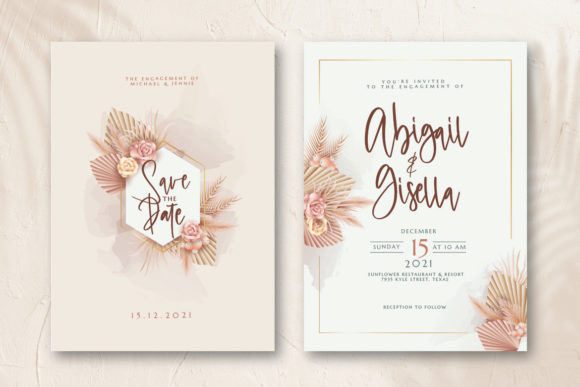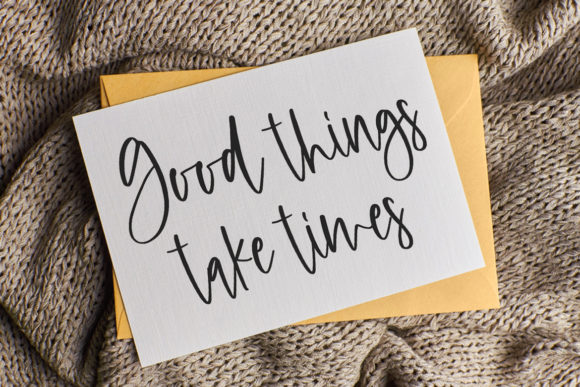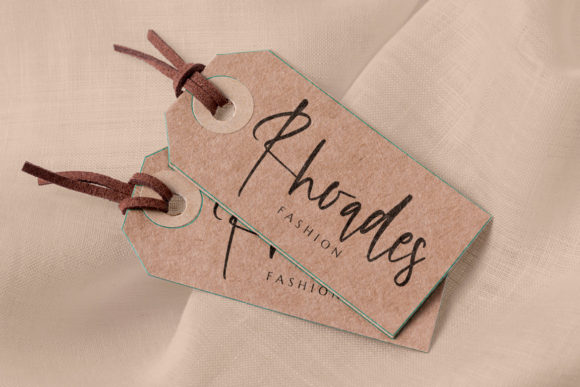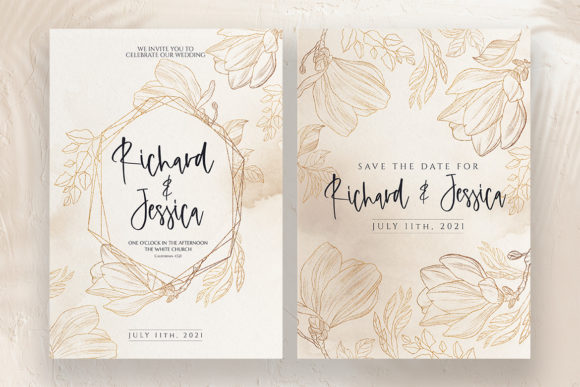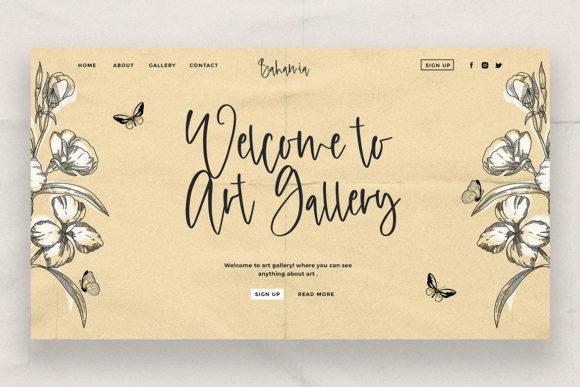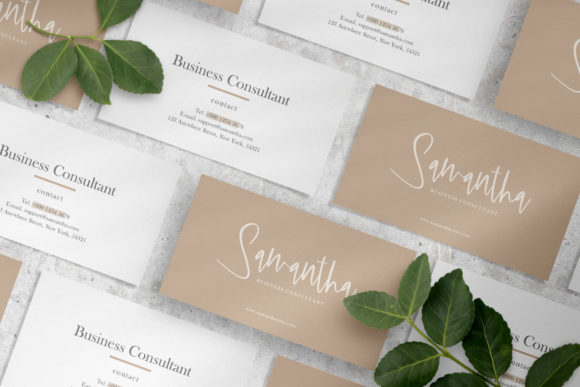
Bahamia Font: Elevate Your Designs with a Relaxed, Elegant, and Flowing Handwritten Style
In the world of typography, fonts play a crucial role in conveying the tone and personality of a design. For designers and crafters looking for a typeface that exudes relaxation, elegance, and a touch of sophistication, the Bahamia Font is an excellent choice. This beautiful, handwritten font is designed to bring a sense of fluidity and style to your projects, making it an ideal match for a wide range of designs.
The Characteristics of Bahamia Font
Bahamia is a carefully crafted, handwritten font that boasts a relaxed and elegant appearance. Its flowing lines and curves create a sense of movement, adding a dynamic touch to any design. The font features stylish characters that are both refined and approachable, making it perfect for projects that require a personal and friendly feel.
One of the standout features of Bahamia Font is its versatility. Its unique blend of sophistication and laid-back charm makes it suitable for a diverse range of applications, from luxury branding and advertising to packaging, stationery, and digital media.
Why Choose Bahamia Font?
So, what sets Bahamia Font apart from other typefaces? Here are just a few reasons why designers and crafters love working with this beautiful font:
- Unique and Eye-Catching: Bahamia Font’s distinctive, handwritten style ensures that your designs will stand out from the crowd. Its elegant and flowing lines create a lasting impression, making it perfect for projects that require a touch of sophistication.
- Versatile: Whether you’re working on a luxury brand, a personal project, or a digital product, Bahamia Font adapts seamlessly to different contexts. Its relaxed and elegant appearance makes it suitable for a wide range of designs.
- Easy to Read: Despite its elegant and flowing lines, Bahamia Font remains highly legible, even at smaller sizes. This makes it perfect for body text, headings, and titles.
- Customizable: As a digital font, Bahamia can be easily customized to fit your project’s specific needs. Experiment with different colors, sizes, and styles to create a unique look that reflects your brand’s personality.
How to Use Bahamia Font in Your Projects
Ready to add Bahamia Font to your design arsenal? Here are some ideas to get you started:
- Branding and Logo Design: Use Bahamia Font to create a luxurious and sophisticated brand identity. Its elegant lines and refined appearance make it perfect for high-end brands.
- Digital Media: Add a touch of elegance to your digital products, such as e-books, blogs, and social media graphics, with Bahamia Font.
- Packaging and Stationery: Create beautiful packaging and stationery designs with Bahamia Font. Its flowing lines and curves add a touch of sophistication to any project.
- Advertising and Marketing: Use Bahamia Font to create eye-catching ads and marketing materials that exude elegance and refinement.
In conclusion, Bahamia Font is a stunning, handwritten typeface that brings a relaxed, elegant, and flowing style to any design. Its unique blend of sophistication and approachability makes it perfect for a wide range of projects, from luxury branding to digital media. With its ease of use, versatility, and customizable features, Bahamia Font is sure to become a favorite among designers and crafters.